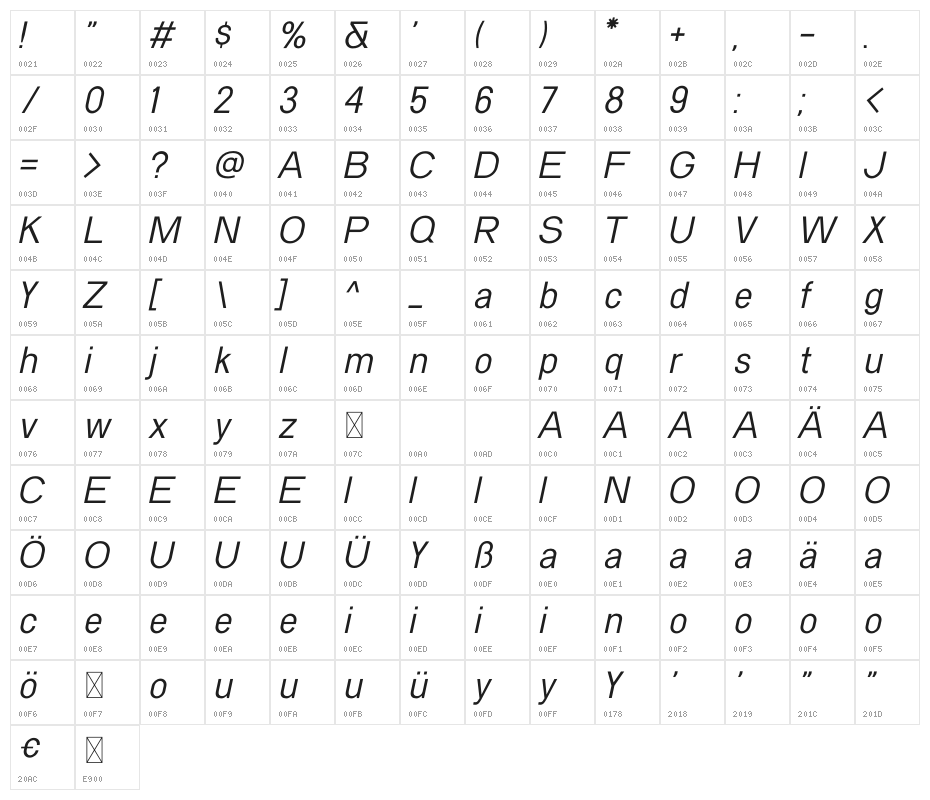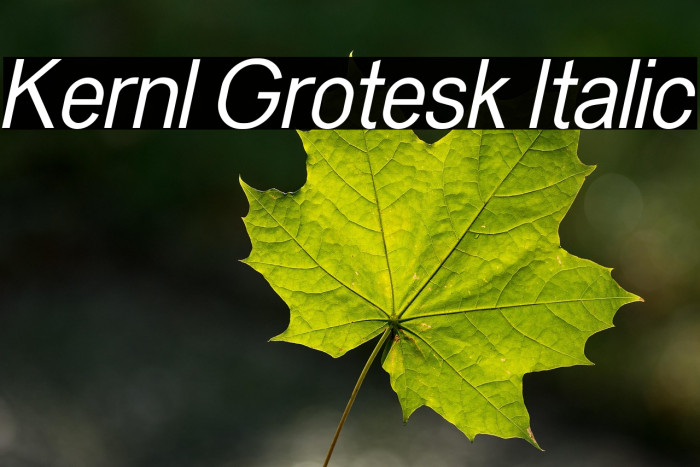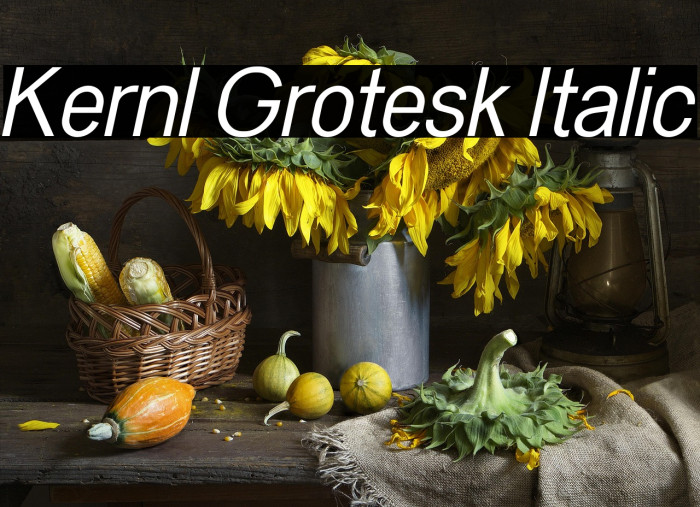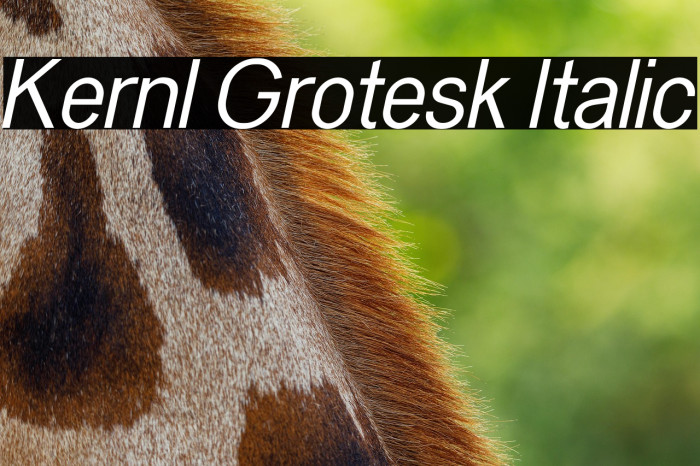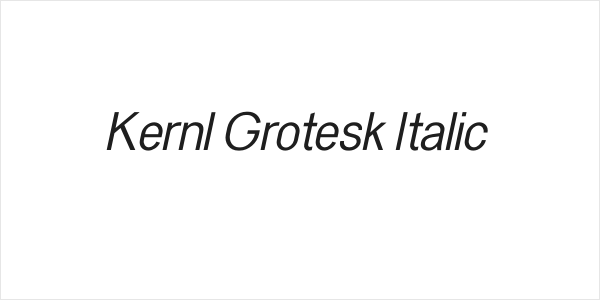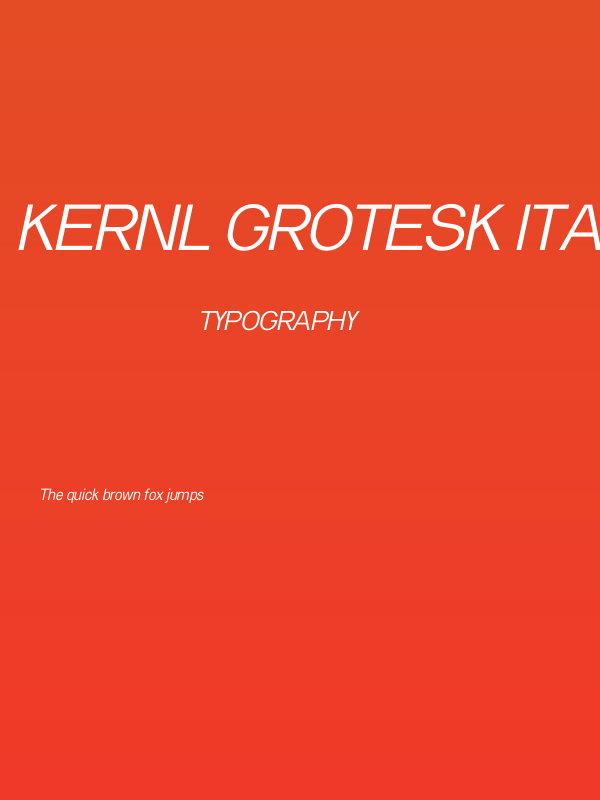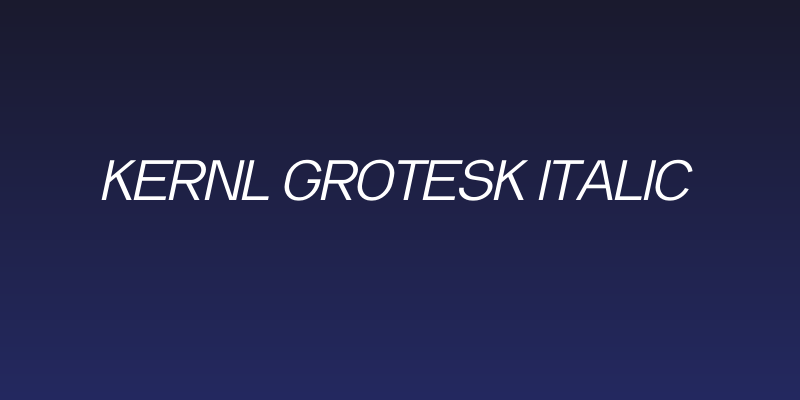
Kernl Grotesk Italic Font
Kernl Grotesk Italic Description
This font features a sleek and modern design with a clean, sans-serif style. The italicized form adds a dynamic and forward-leaning appearance, making it suitable for contemporary design projects. The characters are well-proportioned with a consistent stroke width, providing a balanced and harmonious look. The font maintains a professional and sophisticated aesthetic, ideal for both digital and print media. Its versatility allows it to be used in various contexts, from corporate branding to editorial design. The character set includes uppercase and lowercase letters, numerals, and a range of special characters, ensuring comprehensive usability.
| Proposed Projects | Ideal for corporate branding, editorial design, digital media, and advertising campaigns. |